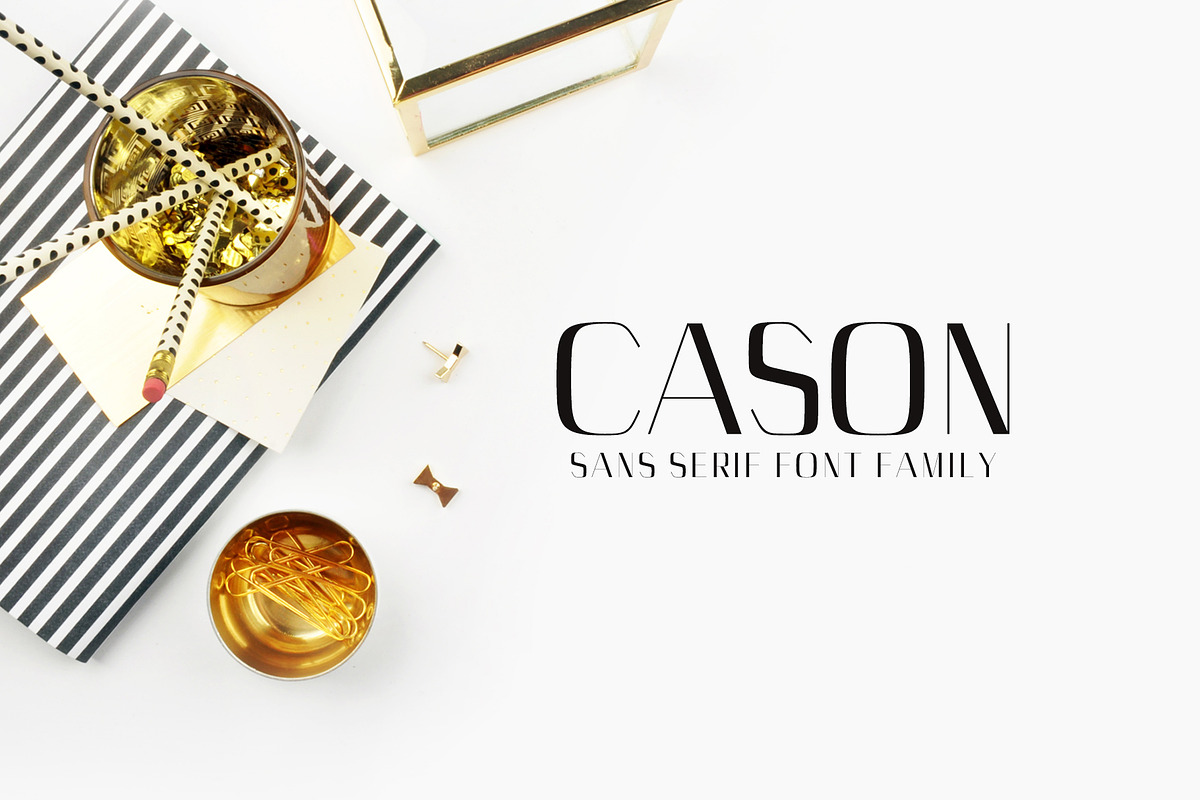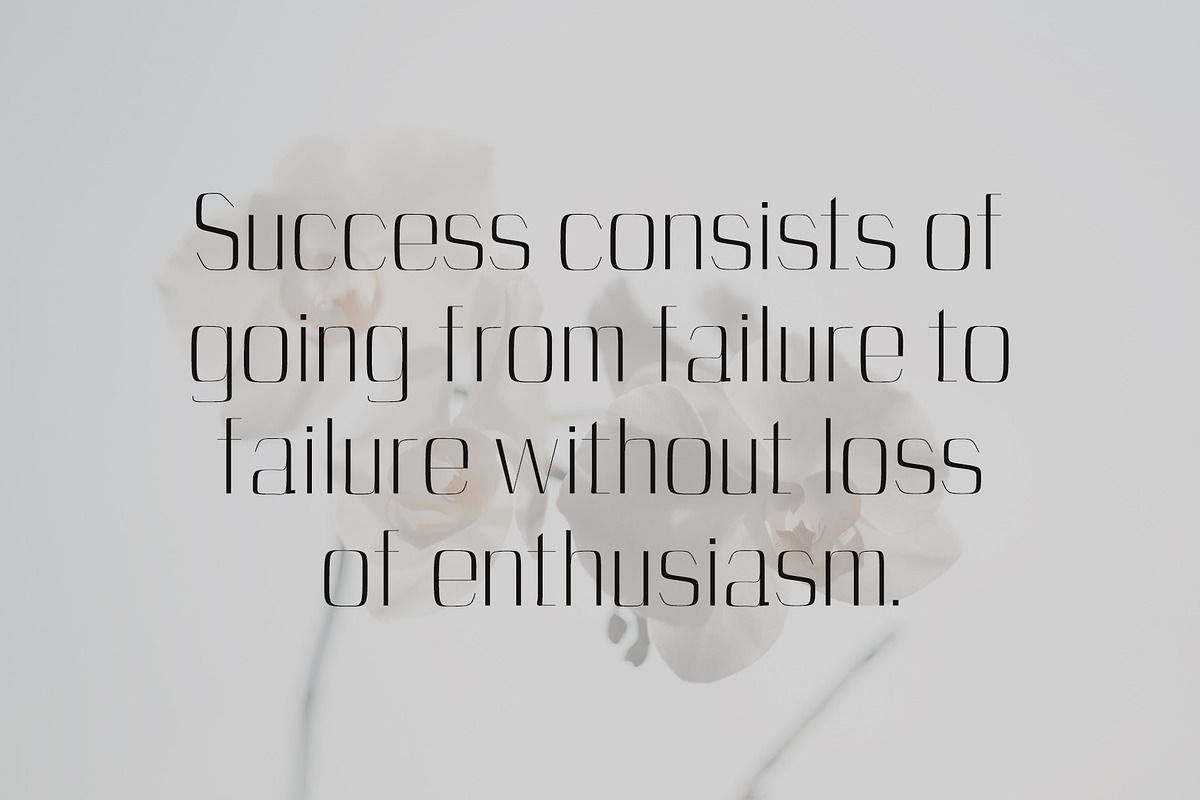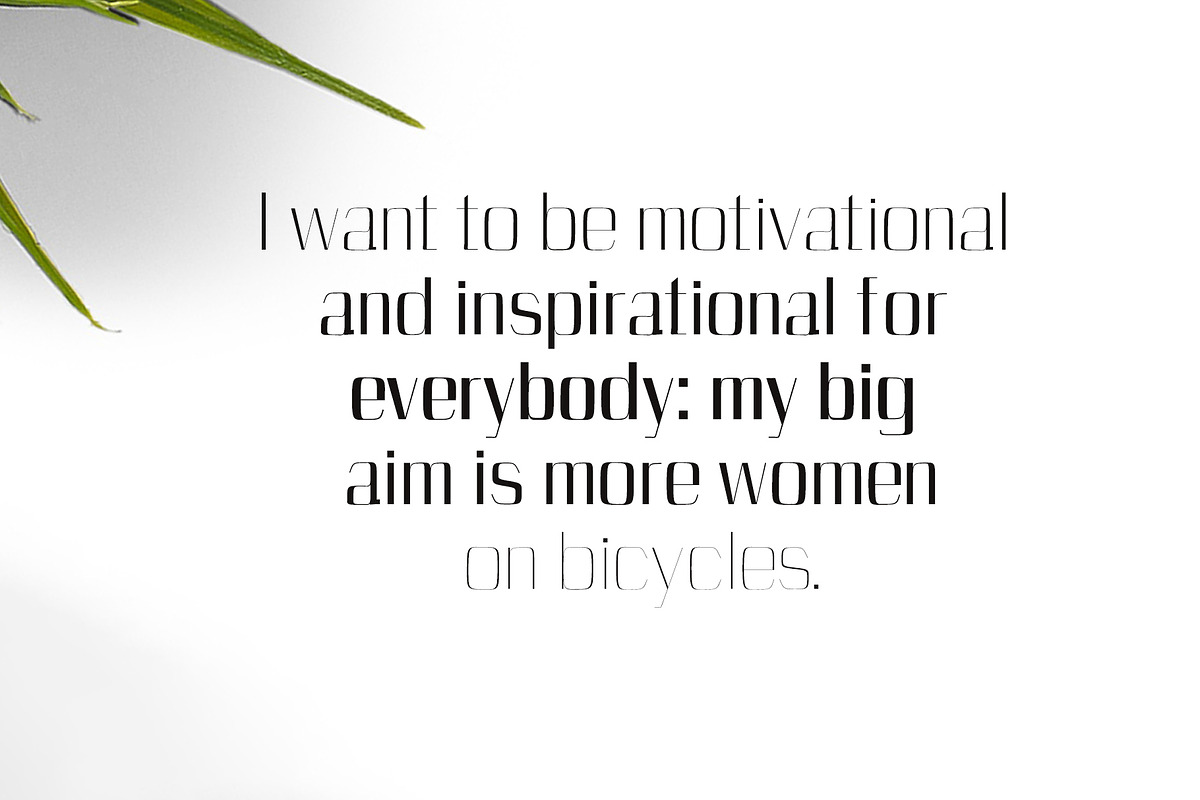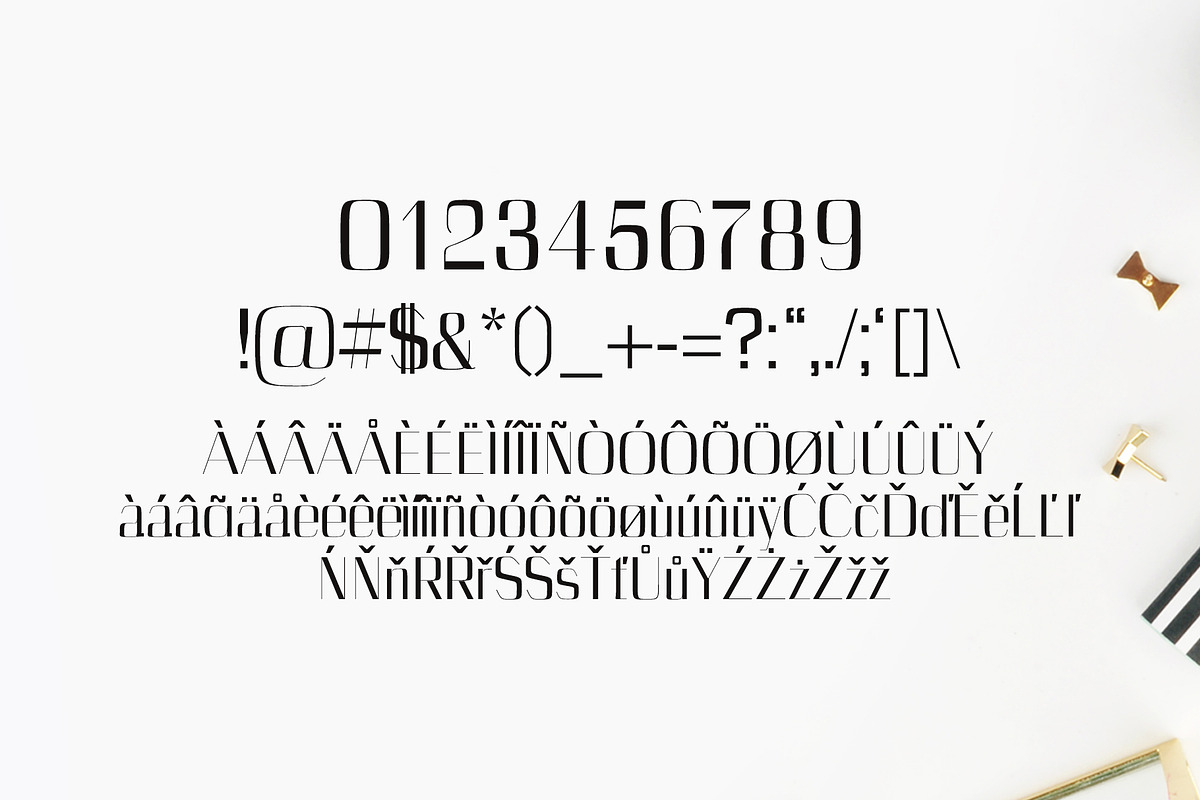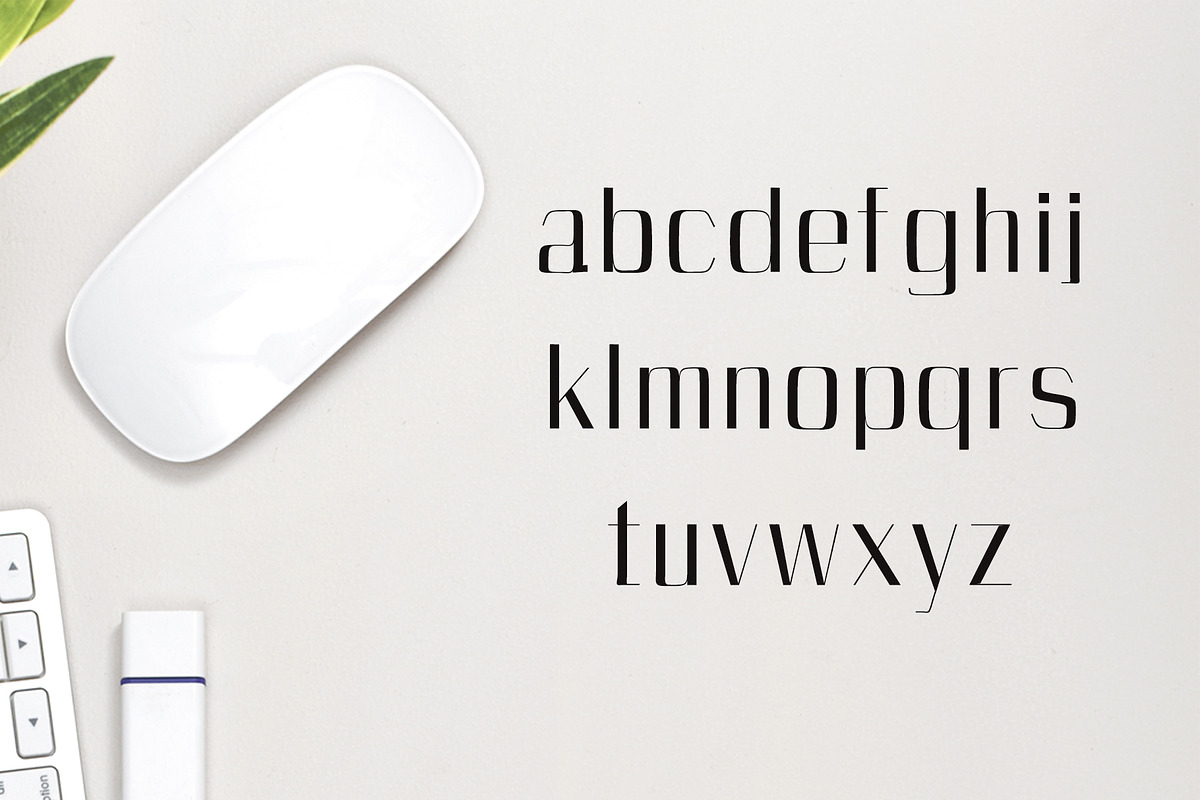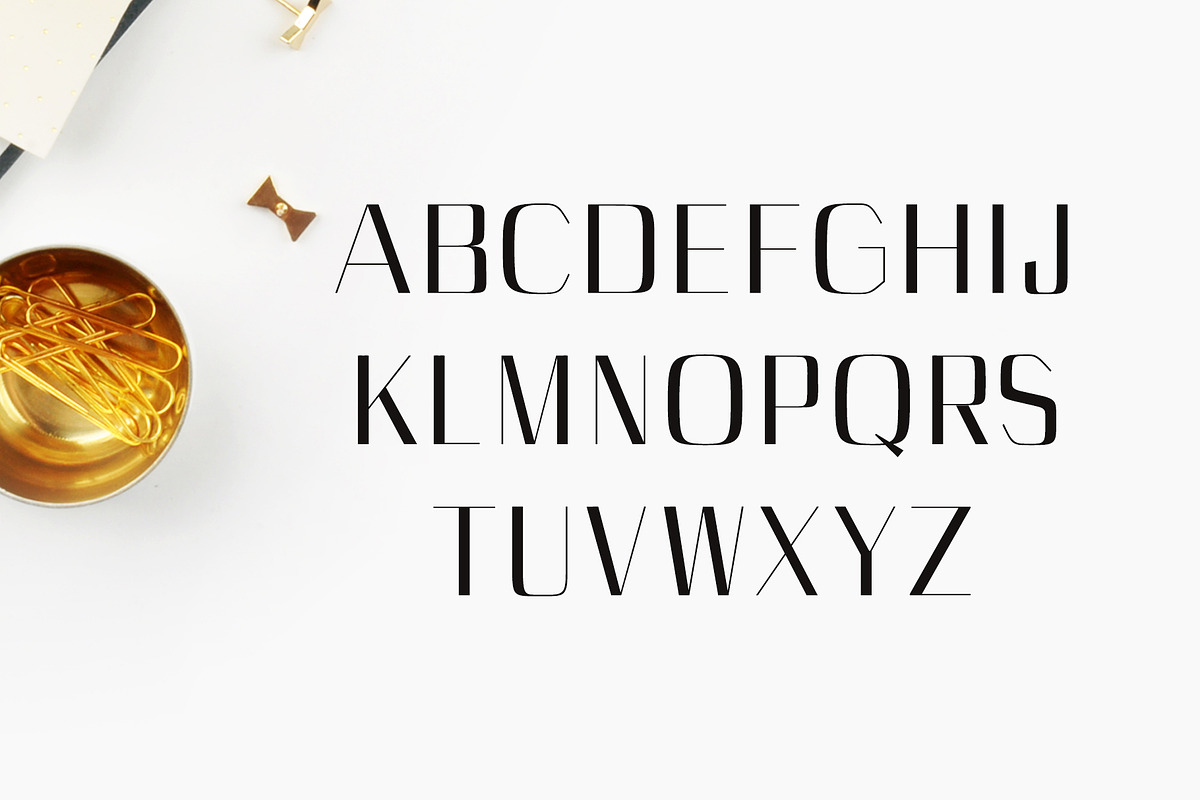
Cason Sans Serif 5 Font Family
Cason Sans Serif 5 Font Family by Creativetacos is a font selected for branding, posters, packaging, typography.
- Includes 5 weights The perfect choice for Modern, Fashion & Magazine Titles.
- Regular, Thin, Light, Bold and Extra Bold Weights
- Cason Thin
- Cason Light
- Cason Regular
- Cason Bold
- Cason ExtraBold
Cason Sans Serif 5 Font Family by Creativetacos fits naturally into Branding, posters, packaging, typography.